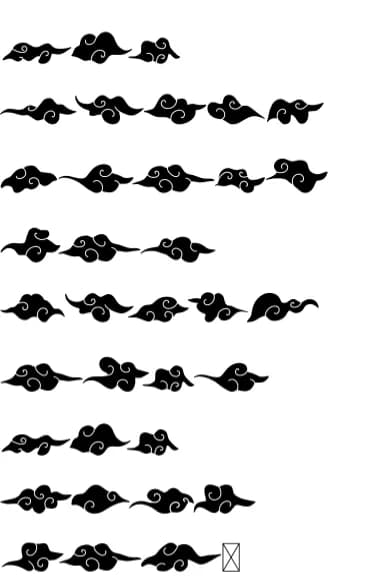
Cloudy Sky, designed by Eystore, is a fun dingbat collection built around distinctive cloud shapes infused with subtle Chinese design sensibilities. Rather than static symbols, the letterforms feel playful and organic, giving them natural appeal across diverse projects that call for a lighter touch.
This font shines in greeting card designs, especially for Chinese New Year celebrations or summer projects where cloud imagery naturally strengthens the seasonal mood. Tea packaging labels and custom gift tags all gain personality from the whimsical cloud motifs, while DIY scrapbooking layouts benefit from layering these symbols into your pages. Children's book illustrations and decorative poster designs also find an equally strong visual partner in Cloudy Sky's gentle, inviting character.
Since dingbats work as a collection of symbols rather than traditional letters, you'll have a wide range of cloud variations and decorative elements at your disposal. This flexibility makes the font especially useful when you need visual interest without replacing your body text. Designers working on seasonal campaigns, holiday projects, and craft-focused work will find real value in the cohesive visual language Cloudy Sky brings to any design. The font is available on Creative Fabrica, ready to enhance your next festive or celebratory project.
Cloudy Sky Font
by Eystore